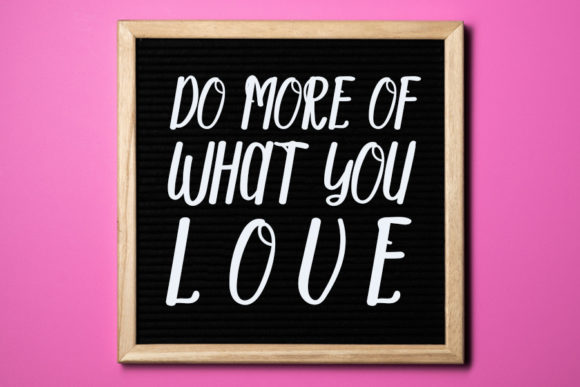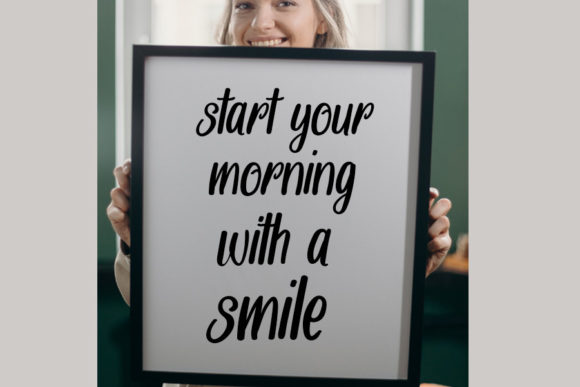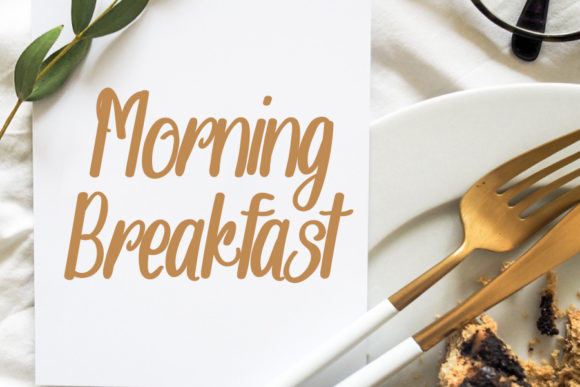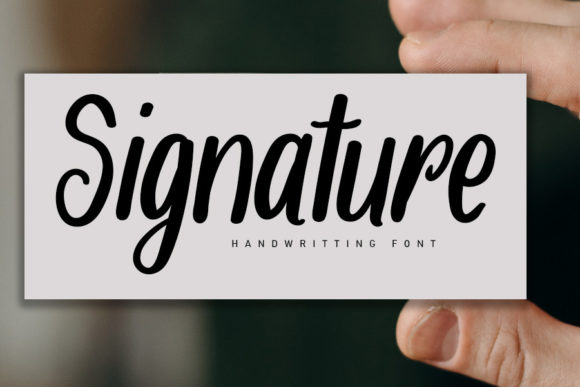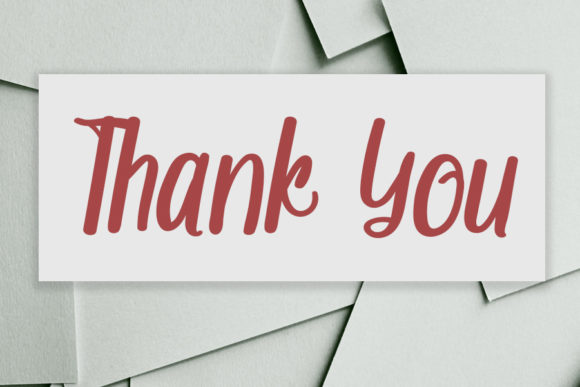
Unlock the Magic of Summer Vibes with Better Summer Font
There’s something special about stepping into the world of summer creativity – the sun-kissed days, the endless possibilities, and the urge to bring your most vibrant ideas to life. As you sit down to plan your next Instagram post or DIY project, you can’t help but feel the excitement building up. The right font can make all the difference, and that’s where the enchanting Better Summer Font comes in.
This magical script font is carefully crafted to infuse your designs with a touch of elegance and whimsy. Whether you’re a seasoned designer or a creative enthusiast, the Better Summer Font is sure to elevate your projects and leave a lasting impression. Its versatility makes it a valuable addition to any designer’s toolkit, and its unique charm will have you coming back for more. So why settle for ordinary when you can have a Better Summer Font that brings your summer vibes to life?
Better Summer Font Key Features
- Unique Characteristics: Features a modern, cursive script with a relaxed and casual feel, perfect for summer-themed designs, invitations, and social media graphics.
- Font Weight: Available in Regular and Bold weights, allowing designers to add depth and emphasis to their designs.
Better Summer Font Review
I was excited to try out the Better Summer Font, hoping it would bring a refreshing vibe to my designs. Overall, I found it to be a decent addition to my font collection. ✨
- Unique and playful feel that’s perfect for summer-themed projects
- Good legibility, even at smaller font sizes
- Comes with a nice set of glyphs and symbols, including some fun icons
- ⚠️ Limited language support, which might be a problem for projects that require multiple languages
- ⚠️ Not ideal for formal or professional projects, as it’s quite casual and playful
- ⚠️ Some characters, like the “a” and “e” might be a bit too stylized for certain projects
Overall, I think the Better Summer Font is a great choice for casual, creative projects, but might not be the best fit for more formal or complex designs. It’s a fun addition to any designer’s toolkit, but use it judiciously.
The Better Summer Font is perfect for:
- Summer-themed projects, such as beach party invitations or summer vacation brochures.
- Outdoor events, such as music festivals or sporting events.
- Travel or adventure-themed projects, such as travel guides or adventure brochures.
For the best results, pair the Better Summer Font with bright and bold colors, and use it in conjunction with other summer-themed fonts and graphics.